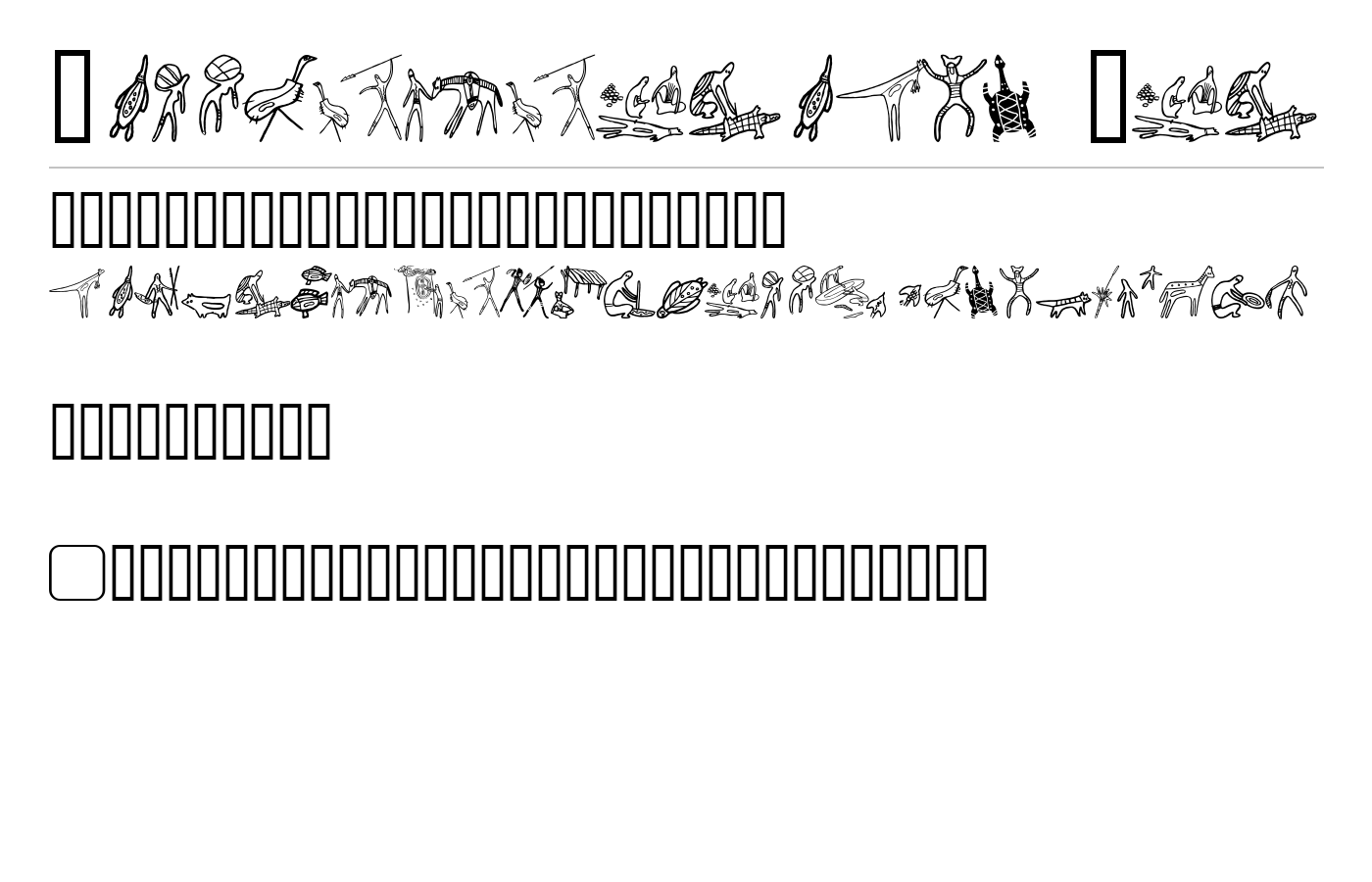
Aboriginebats One is a unique decorative font that draws inspiration from indigenous petroglyph and cave art styles, featuring intricate, hand-drawn figures and symbols instead of traditional letters. This font serves best in creative and cultural projects where a tribal, ancient, or storytelling mood is desired, making it ideal for posters, logos, and artistic designs that seek to evoke history and tradition in a visually engaging way. Due to its ornamental and illustrative nature, it works best in display use rather than body text.
Aboriginebats One Font
About Aboriginebats One Font
| Font family | Aboriginebats One Font |